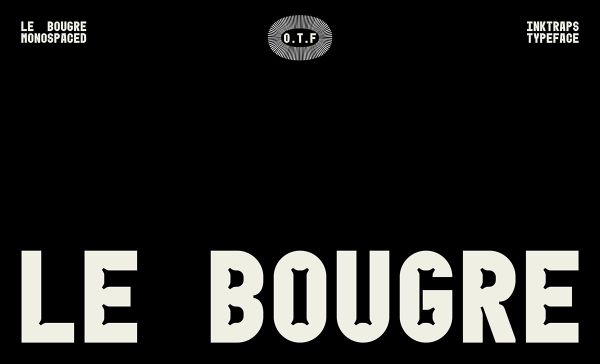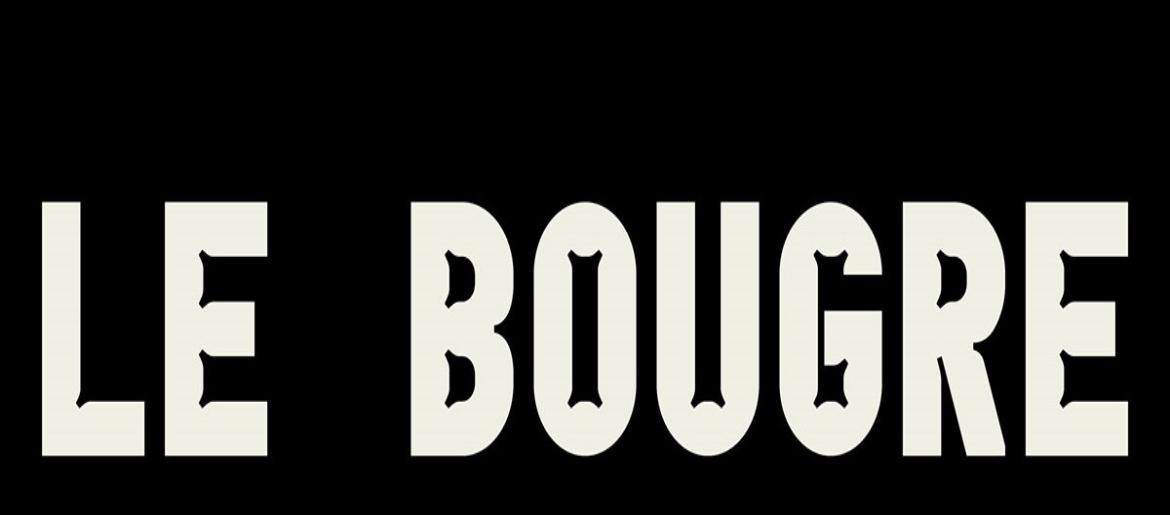
Le Bougre Font
Le Bougre by Maxence Cheval is a bold monospaced typeface with a character that goes well beyond utility. Its distinctive ink trap styling gives each letterform a mechanical precision cut through with genuine typographic craft, while a premium feature set — multilingual characters, circled and superscript characters, and thoughtful alternates — puts it in a different class from most monospaced releases. The result is a typeface equally at home in editorial headlines, logotype work, interface design, and any context that benefits from the structured rhythm of fixed-width spacing delivered with real visual weight. Free for personal and commercial use.
Le Bougre is a bold ink-trap monospaced typeface in our free font collection, from Lille-based designer Maxence Cheval — a French type designer whose work is distributed through Pixel Surplus, a Canadian design resource platform committed to sharing quality type tools with the wider creative community. Browse our full library of free fonts and discover more distinctive typefaces crafted by independent designers around the world.